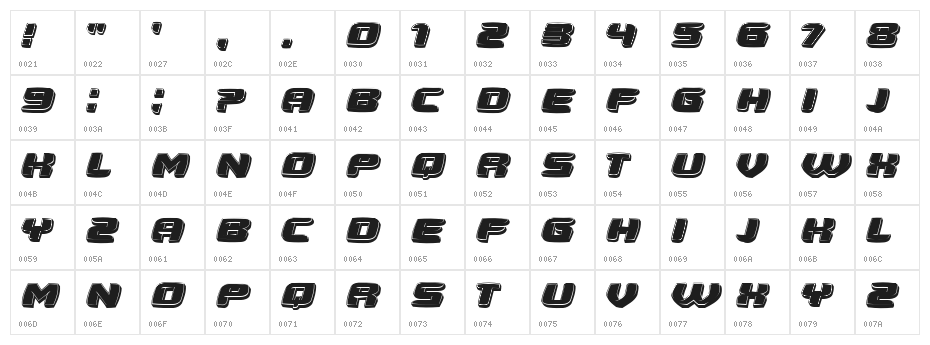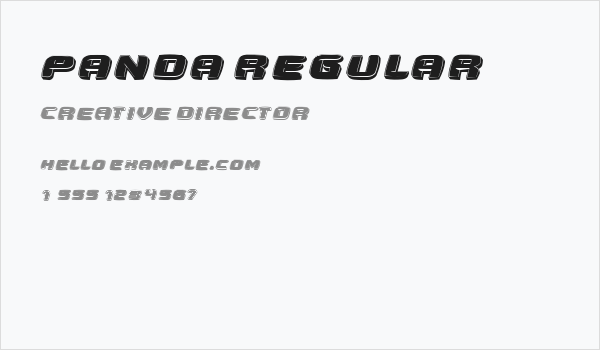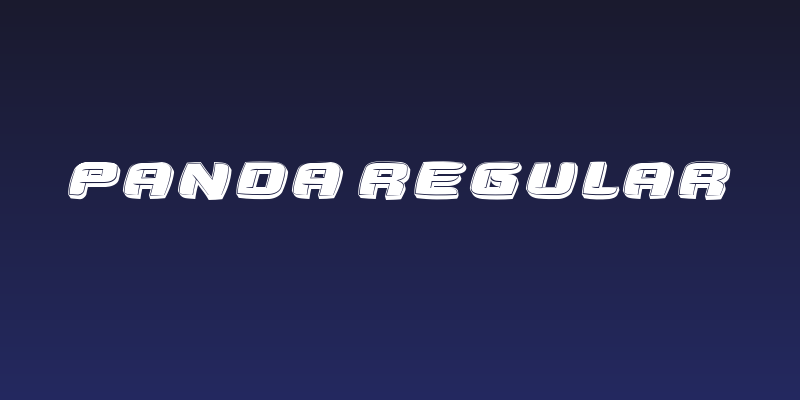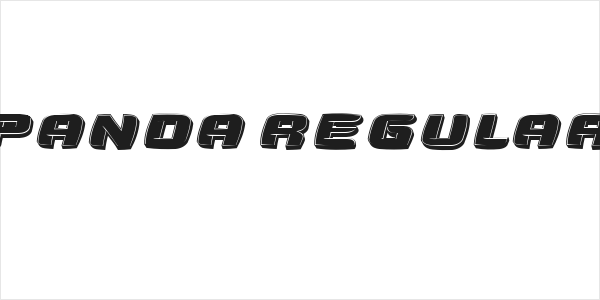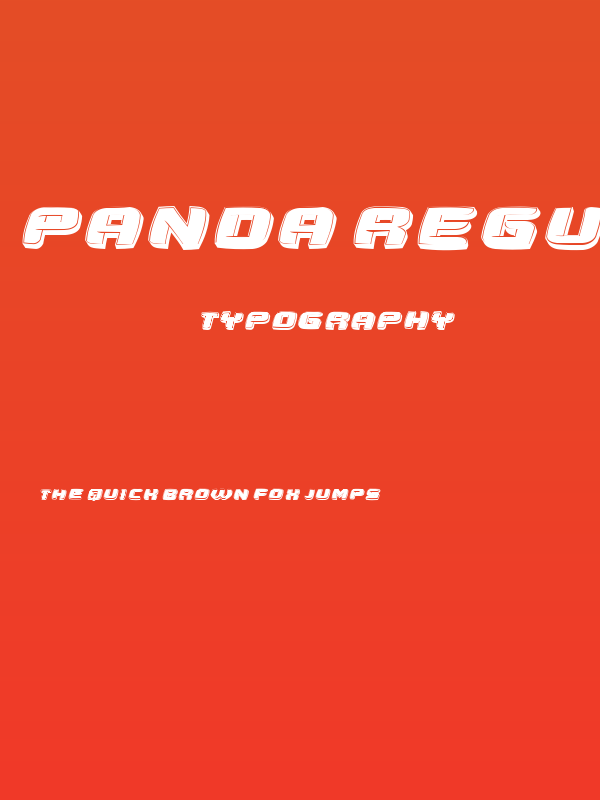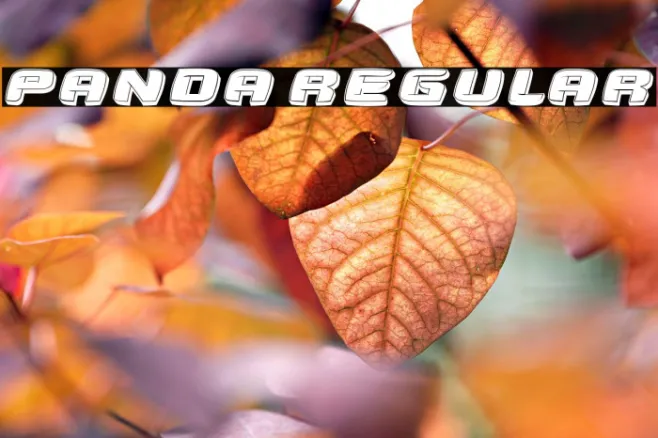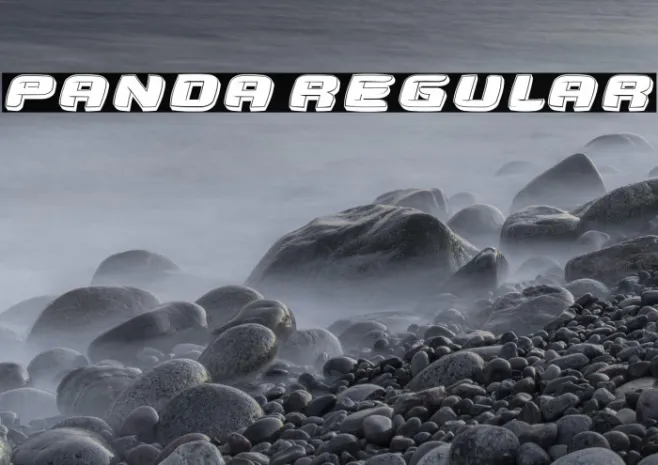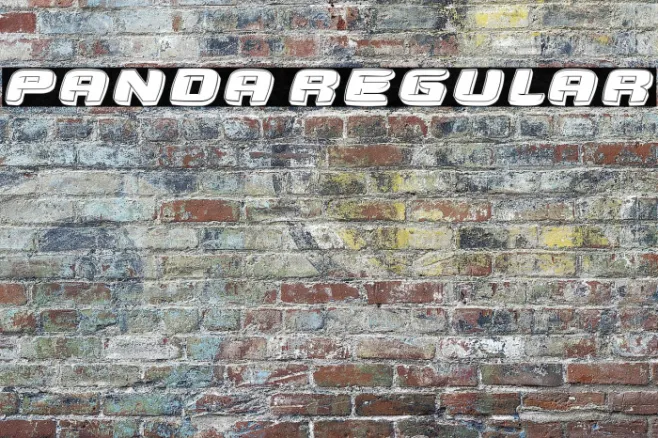
Panda Regular Font
Panda Regular Description
This font features a bold, futuristic design with a strong 3D effect. The characters are outlined with a thick black border, giving them a striking appearance. The letters are slightly slanted, adding a dynamic feel to the text. The font maintains a consistent thickness throughout, with rounded edges that soften the overall look. The numbers and special characters follow the same style, ensuring uniformity across all elements. This font is eye-catching and ideal for projects that require a modern and impactful visual presence.
| Proposed Projects | Ideal for video game titles, tech branding, posters, and futuristic-themed designs. |